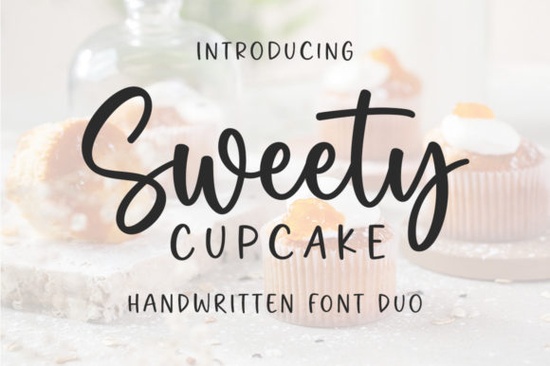
Choosing the right typography can often feel like the hardest part of a design project. You spend hours scrolling through libraries trying to find a pair that looks good together, only to end up frustrated. This is where the Sweet Cupcake Font steps in to simplify your workflow. It is an elegant duo that solves the matching problem by providing both a flowing handwritten script and a clean sans serif in one package. Because the characters are well-balanced, you don't have to guess if they will work together; the designer has already done that heavy lifting for you.
For crafters and small business owners, having a versatile typeface is essential. Whether you are creating a logo for a bakery, designing wedding invitations, or making print-on-demand t-shirts, this font offers the flexibility you need. The script portion adds a personal, human touch, while the sans serif ensures readability for smaller text or body copy. It is a practical tool that helps you move from idea to finished product much faster.
Why is a font duo better than single styles?
When you buy a single font file, you often limit your design options. You might love a fancy script for a headline, but it becomes illegible when you try to use it for an address or ingredient list. A duo font set solves this by giving you two distinct voices that speak the same visual language. With Sweet Cupcake Font, you get the best of both worlds.
The script style is perfect for drawing attention. It mimics natural handwriting, which builds trust and feels approachable. This is particularly useful if you are selling handmade goods. If you enjoy that specific aesthetic, you might also appreciate browsing through other handmade script fonts to see how different strokes can change the mood of a brand. However, having the matching sans serif means you can create a complete brand identity without buying two separate licenses.
What are the best projects for this typeface?
Because the style is elegant yet readable, it fits into several niches. Here are a few ways designers and hobbyists are using it:
- Wedding Stationery: The flowing script is ideal for names on invitations, while the sans serif works perfectly for the details like date, time, and location.
- Logo Design: Small businesses, especially in the beauty or food industry, can use the script for the brand name and the sans serif for a tagline.
- Social Media Graphics: Create quote cards or announcement posts where the hierarchy between the headline and the text is clear.
- Packaging Labels: Use it on jars, bags, or boxes where you need to list contents clearly but still want a boutique look.
If you are looking for something with a similar romantic vibe, you might compare it to styles like the Ashley Southine font. Both offer that classic, feminine touch that works well for special occasions. However, Sweet Cupcake stands out because of its specific balance between the thick and thin strokes in the script, making it legible even at smaller sizes.
How does it compare to other popular scripts?
In the world of digital typography, there are thousands of options. Some are very decorative and hard to read, while others are too plain. This font sits in a "Goldilocks" zone it is decorative enough to be interesting but simple enough to be functional. For example, if you need a font that acts more like a visual element or a picture, you might look at the Front Picture font, which is more illustrative. Sweet Cupcake, on the other hand, remains a functional tool for communication.
It is also worth noting the versatility regarding audience. While it feels elegant, it isn't so stiff that it can't be used for lighter, fun projects. If you are designing for a younger audience or something educational, you might typically look for a children's school font, but Sweet Cupcake can work for craft kits or playful party favors where you still want a touch of sophistication.
For those who prefer a cleaner, more modern script without as much flair, the Randy Sofia font is another strong contender in the script category. Comparing these helps you decide how much "swash" and decoration you actually need for your specific project.
Adding a high-quality font duo to your library is an investment in your design speed. Instead of wasting time mixing and matching, you have a ready-made solution that looks professional immediately.